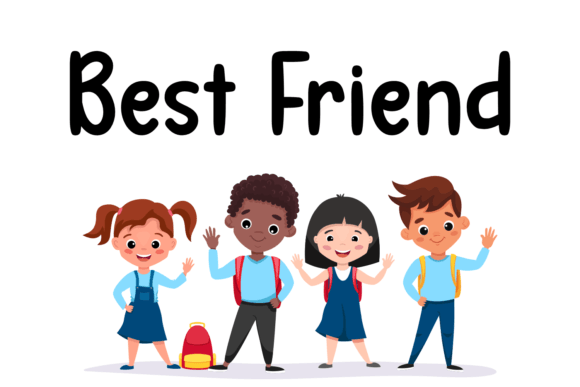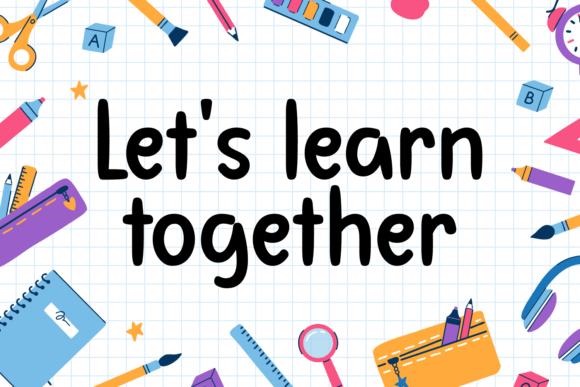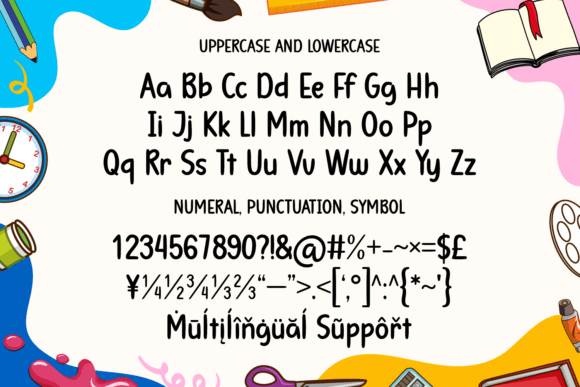
Introduction to School Memories Font
Remember the feeling of scribbling notes in the margins of your notebook or writing love letters to friends on a postcard? The imperfections and quirks of handwriting can evoke a sense of nostalgia and personal touch like no other design element can. This is exactly what the School Memories Font is all about – capturing the essence of classic school notes and casual writing in a beautiful, high-quality typeface.
As a designer, you’re always on the lookout for that special something to elevate your project from ordinary to extraordinary. And that’s where the School Memories Font comes in – a versatile design resource that’s perfect for school-themed projects, educational materials, and even personal invitations and greeting cards. With its transparent background and charming handwritten style, this font is sure to add a touch of warmth and familiarity to any creative project.
Key Features of School Memories Font
- High-quality design resource suitable for creative projects
- Includes 5 font styles with unique characteristics, such as distressed textures and vintage effects
- Perfect for use in school-themed designs, scrapbooking, and other creative projects
Honest Review: School Memories Font
I recently stumbled upon the School Memories Font, and I must say it’s been a great addition to my design resources. The high quality of this font is evident from the moment you start using it. The transparent background feature is a nice touch, making it easy to integrate into any creative project.
- Unique and nostalgic aesthetic that’s perfect for retro-themed projects
- High quality and clear typography, making it easy to read
- Only includes a limited number of characters, which may be a drawback for more complex designs
- Not ideal for use in modern, minimalist designs where a more subtle font is preferred
Overall, the School Memories Font is a great addition to any designer’s toolkit. While it may have some limitations, its unique aesthetic and high quality make it an excellent choice for creative projects that require a nostalgic touch. I’d definitely recommend it as a design resource, especially for those working on projects with a retro theme.
Tips for Getting the Most Out of School Memories Font
Experiment with different font sizes, colors, and styles to create a unique look for your design. Use the transparent background feature to blend the font with other design elements. This font is a great design resource for creative projects, and with a free download, you can start using it right away.
Common Use Cases for School Memories Font
This font is perfect for school projects, educational materials, and other design projects that require a fun and playful look. Use it for invitations, posters, or other creative projects that need a touch of nostalgia and whimsy.